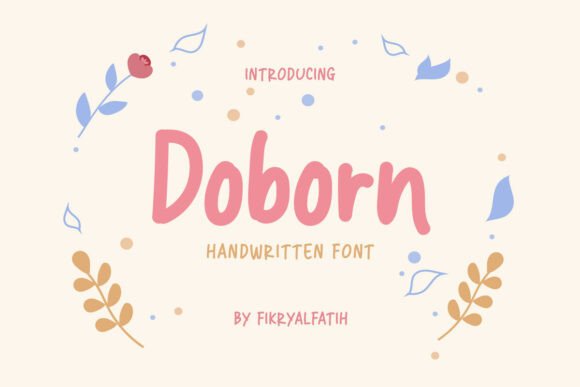
Journey into the Realm of Doborn: A Whimsical Handwritten Font for Creative Expression
Welcome to the enchanting world of Doborn, a remarkable handwritten font that ignites a sense of joy and wonder in every letter. Crafted with meticulous attention to detail, Doborn captures the essence of playful creativity and boundless imagination. Prepare to be captivated by its unique charm and allure.
Immerse yourself in the vibrant world of Doborn, where your imagination takes center stage. Let the playful curves and lively strokes of this font dance across your designs, adding a touch of magic and delight. Whether you're creating whimsical flyers, eye-catching logos, or heartfelt invitations, Doborn promises to transform your words into captivating works of art.
Unleash the vibrancy of Doborn and watch your projects come alive. Its energetic personality is perfect for branding initiatives, where you can create logos that radiate personality and leave a lasting impression. Engage your audience with social media posts that pop with creativity, ensuring your brand stands out from the crowd.
Venture into the realm of product packaging and design with Doborn as your trusted companion. Whether you're crafting labels that demand attention or designing products that exude charm, Doborn's playful spirit will add a touch of enchantment to your creations. Let your imagination soar as you create stationery that captures the hearts of your recipients, leaving them with a smile on their faces.